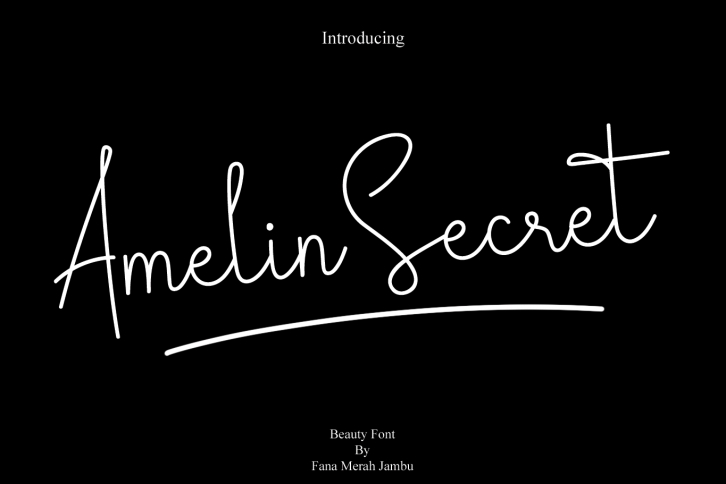
Amelin Secret is a lovely and delicate script font that exudes elegance and class. This font was particularly crafted for those who need a beautiful and refreshing look to their designs.